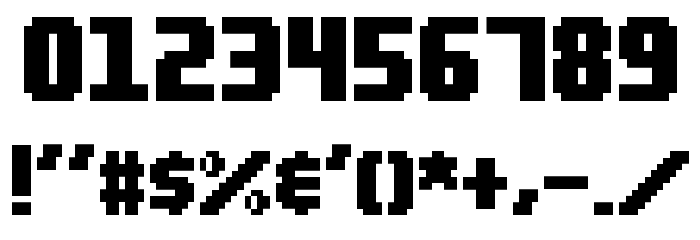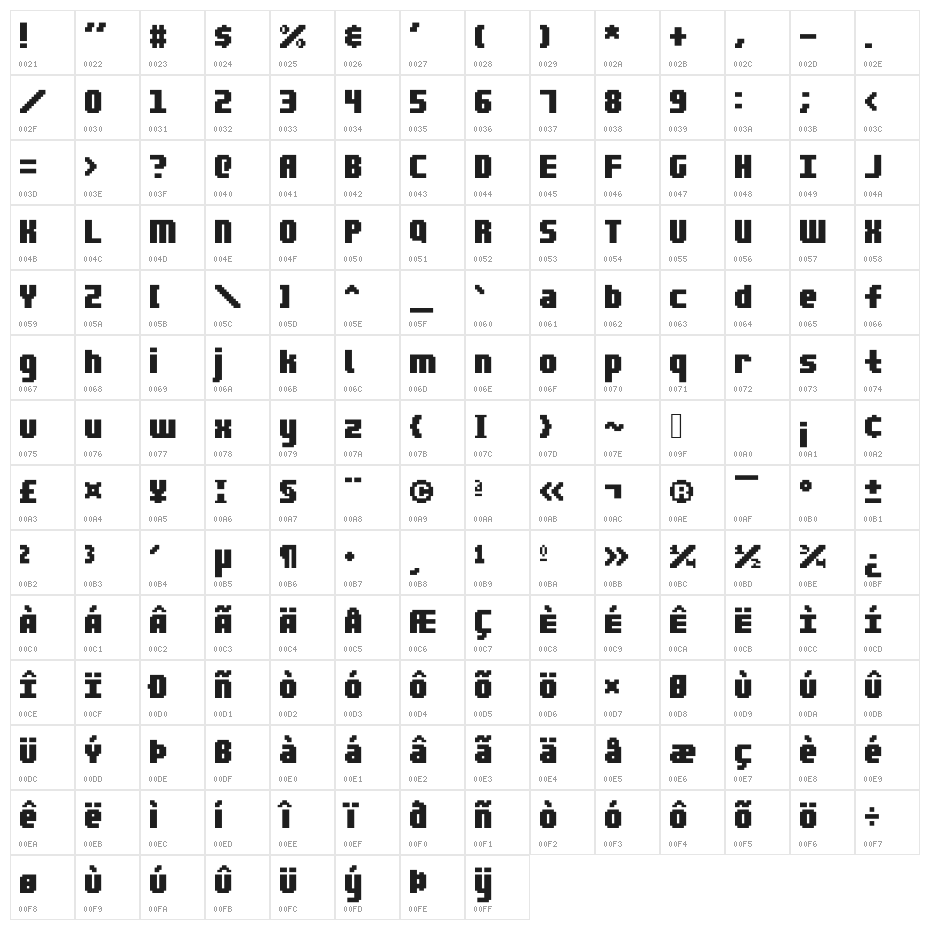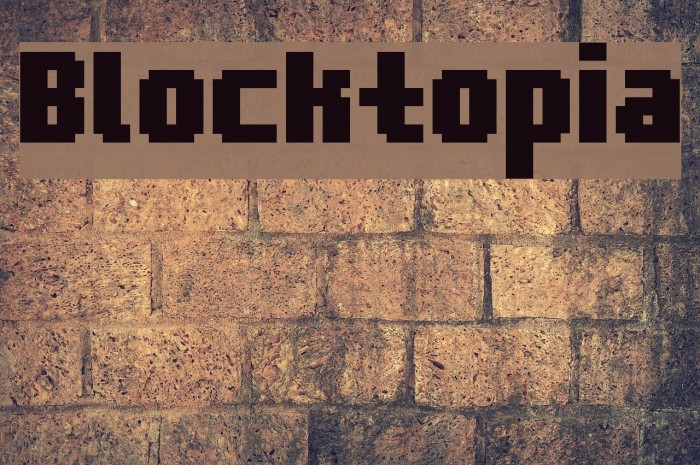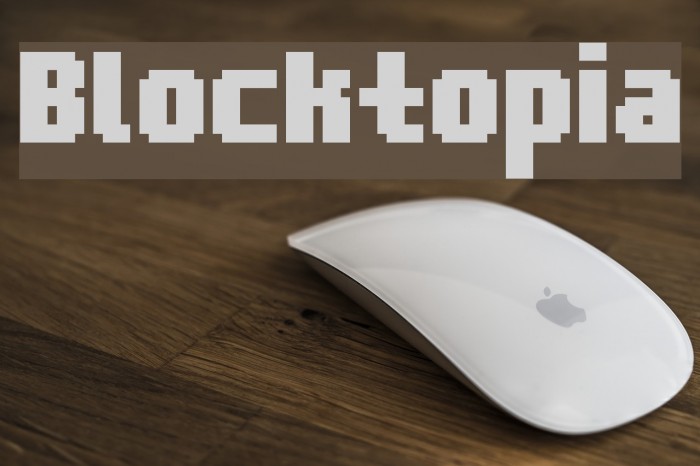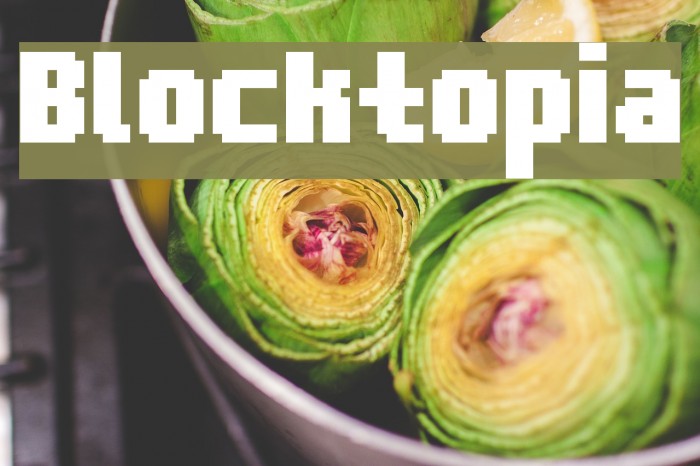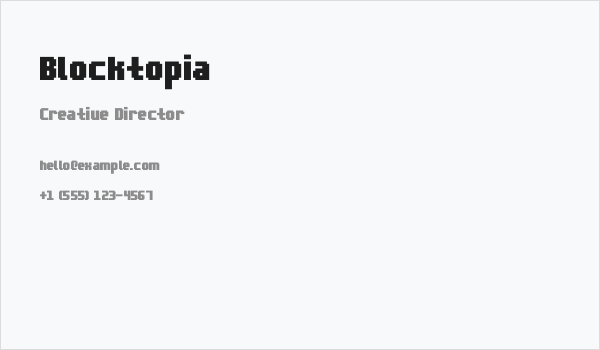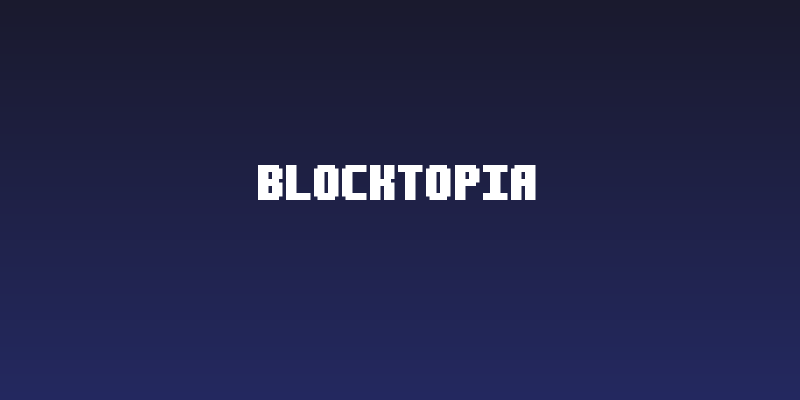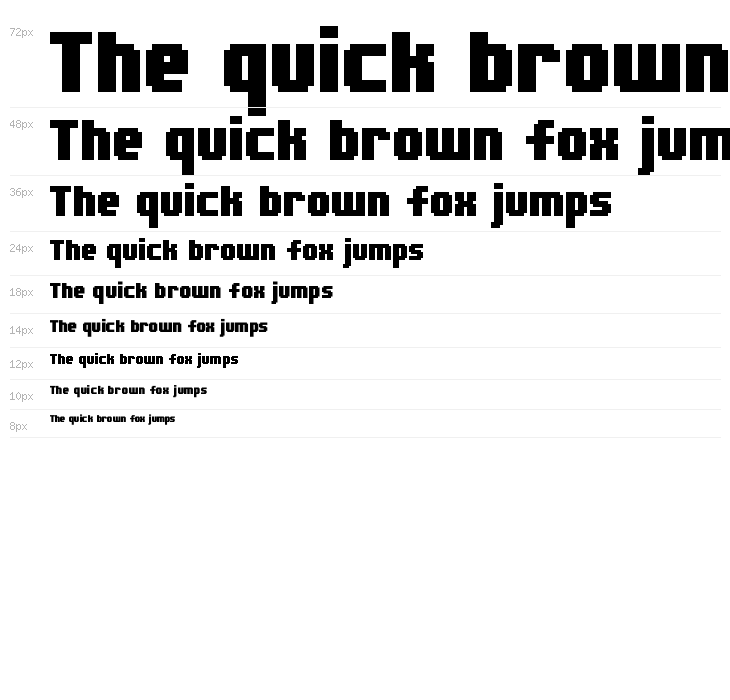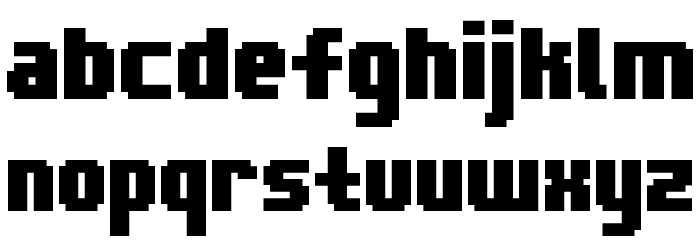
Blocktopia Font
Blocktopia Description
This font features a bold, blocky design with a pixelated aesthetic reminiscent of early digital or video game graphics. The characters are uniformly wide, giving a monospaced appearance, although they are not strictly monospaced. The uppercase and lowercase letters maintain a consistent height, contributing to a cohesive and structured look. The numbers and special characters follow the same geometric style, ensuring visual harmony across all elements. The font's thick strokes and lack of curves give it a strong, impactful presence, making it ideal for attention-grabbing headlines or retro-themed projects.
| Proposed Projects | Ideal for video game graphics, retro-themed posters, digital art projects, and any design requiring a bold, nostalgic look. |